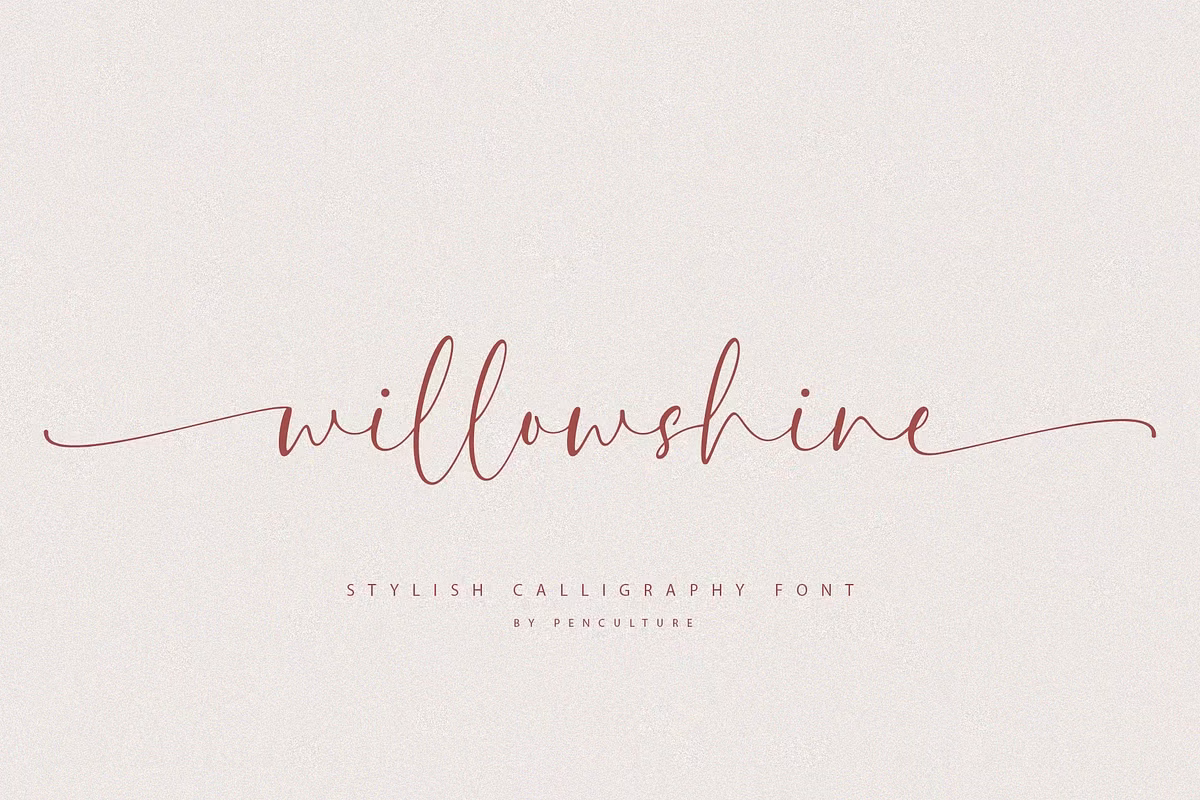
Willowshine Calligraphy Font Free Download
Willowshine Calligraphy Font Free Download is a delicate and elegant script typeface that brings a graceful, handwritten touch to your designs. Featuring smooth, flowing curves and intricate letterforms, this font is perfect for creating logos, invitations, wedding stationery, branding, and more. Its refined style makes it ideal for high-end projects, giving your designs a personal yet sophisticated feel. Whether you’re designing for a luxury brand, creating custom invitations, or crafting a beautiful logo, Willowshine Calligraphy Font Free Download allows you to experiment with its elegant design in personal projects before purchasing a commercial license. Add a touch of elegance and creativity to your designs with this beautifully crafted calligraphy font.